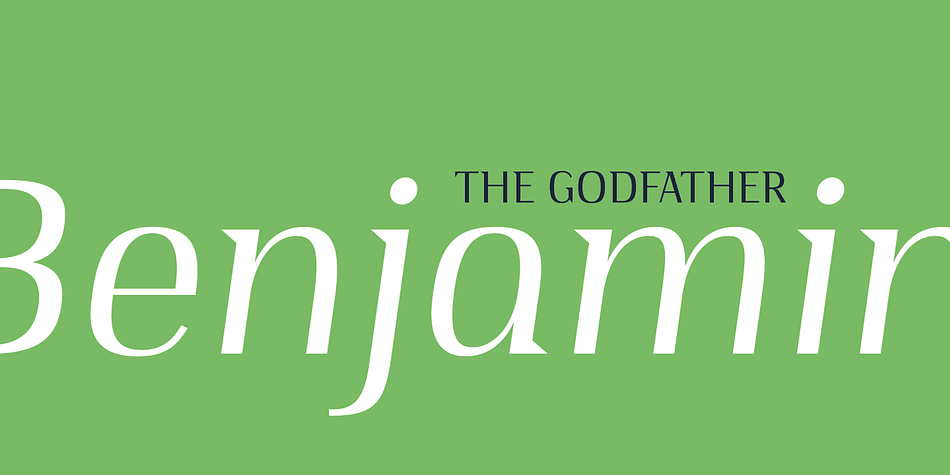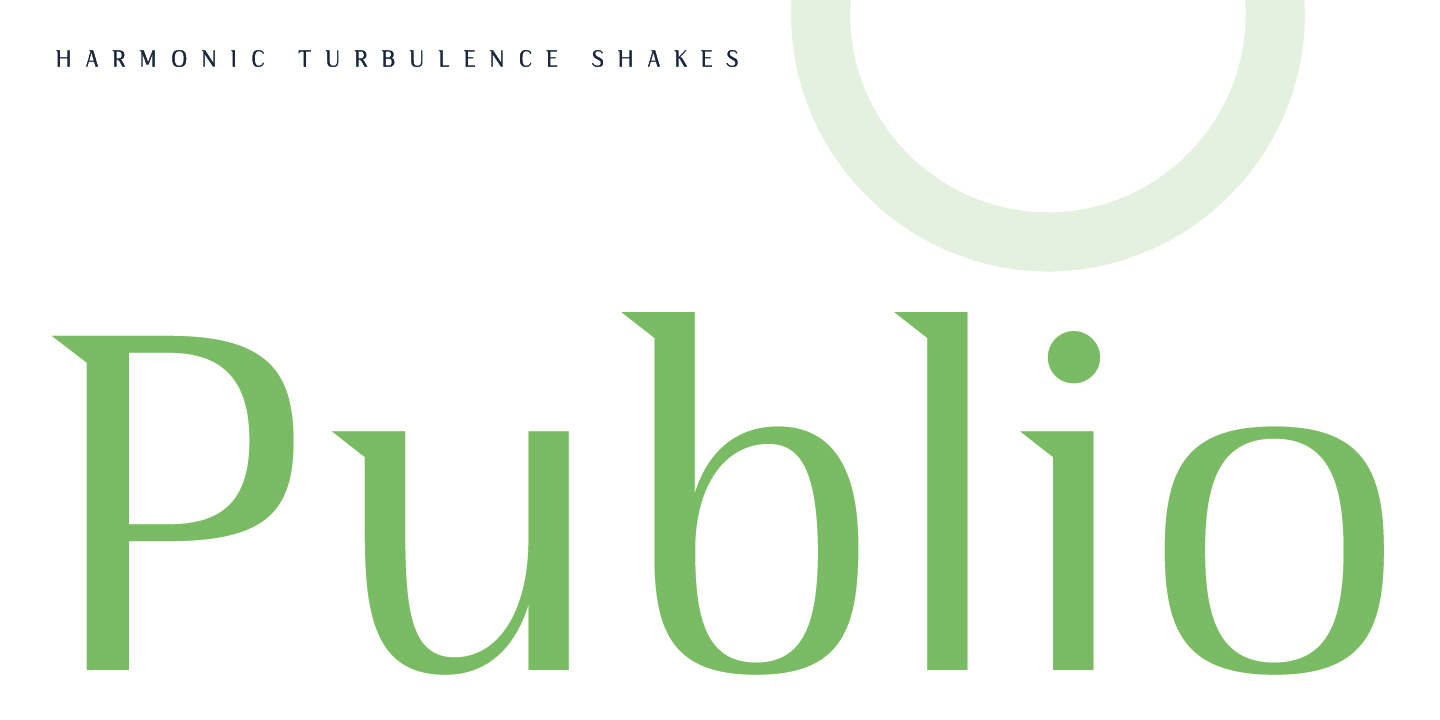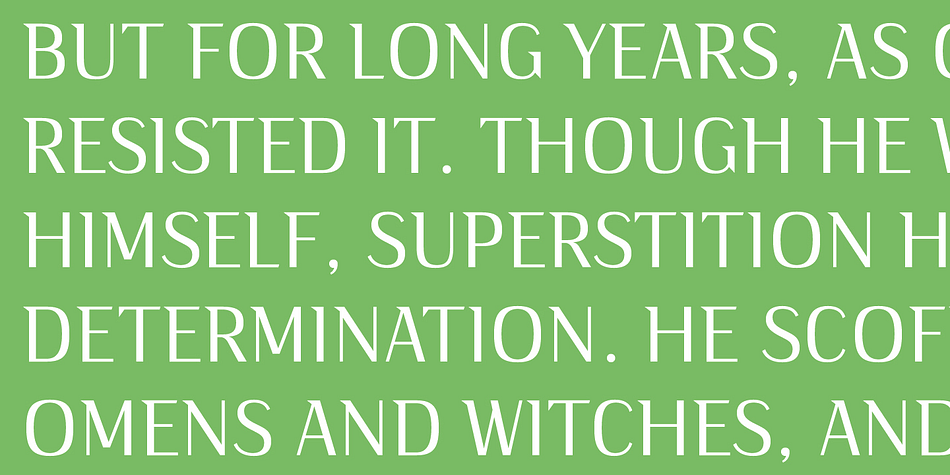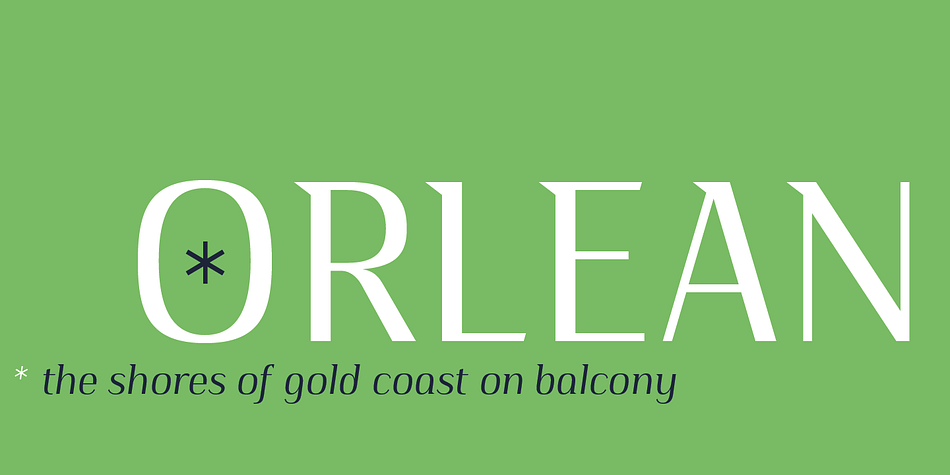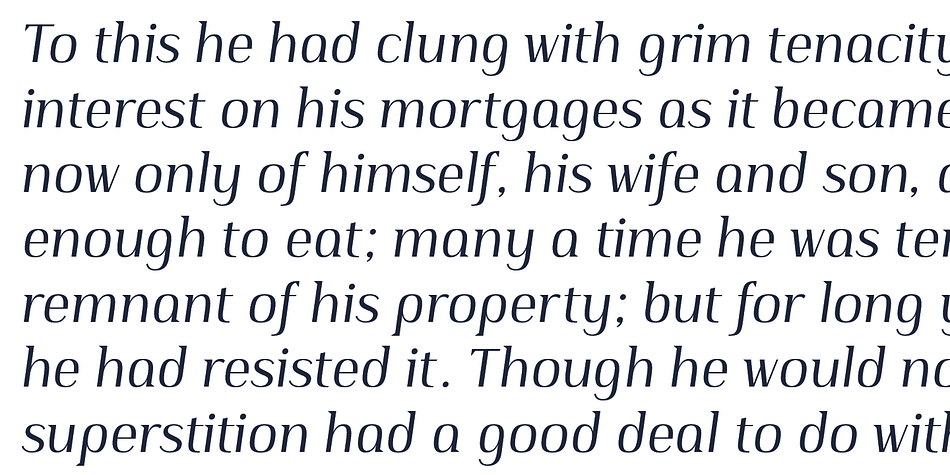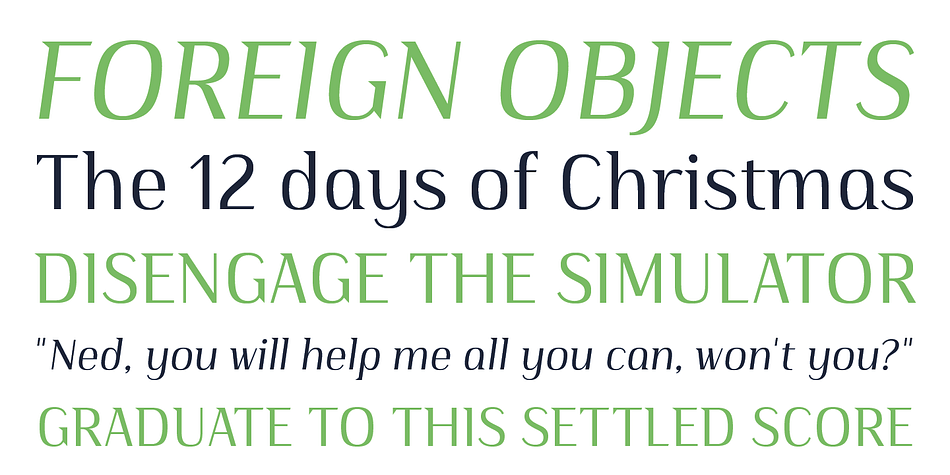
Publio is a sans serif font family. This typeface has two styles and was published by Tour de Force Font Foundry.
Publio is small unusual and unique font family, characterized with sharp, triangular semi-serifs.